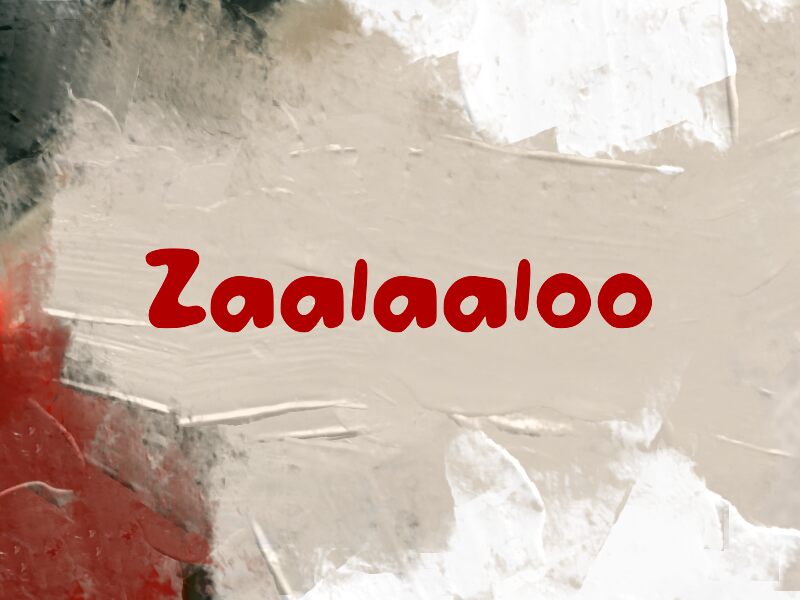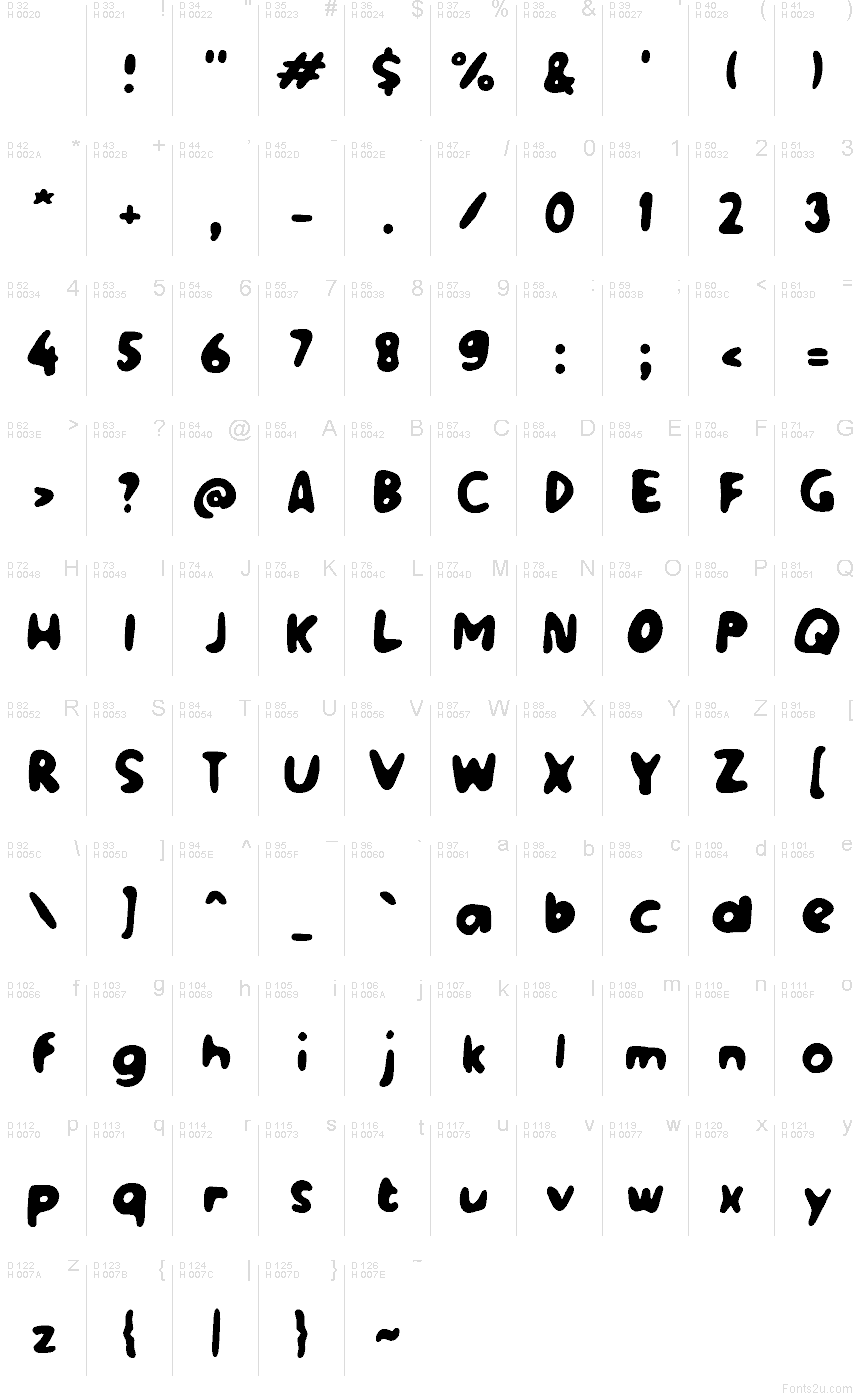
Zaalaaloo
Zaalaaloo font by Wahyu Eka Prasetya of wep is a free cartoon font with big, squishy curves and a bold, blobby rhythm that feels like ink pooling into playful bubbles. The letters sit wide and cozy with soft edges that stay legible even when you crank the size up, giving your words a friendly, comic bounce without looking messy.
Using Zaalaaloo, you’ll get instant character on kids’ branding, snack packaging, sticker designs, YouTube thumbnails, playful logos, classroom posters, and party invites. This free font also shines on short headlines and punchy captions where you want warmth and humor in one hit. Pair it with a clean geometric sans for body text, and give it a little extra tracking so the shapes can breathe.